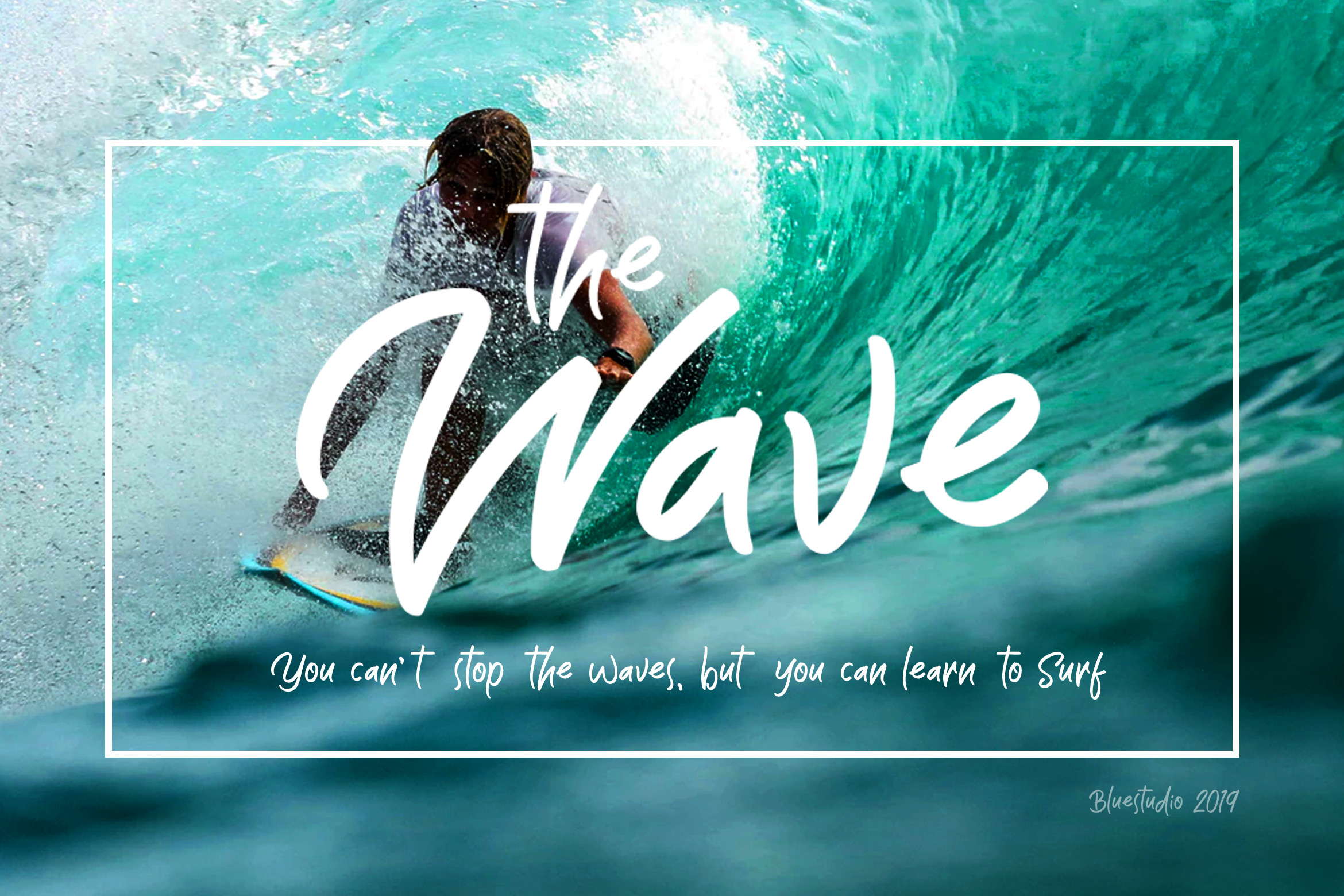
The Wave fits all the needs of the design projects for clothing, t-shirts, branding, quotes, covers, magazine, posters,books and others.
Multilingual support - spread your message globally AÀÁÂÃÄÅCÇDÐEÈÉÌÍÎÏIÌÍÎÏNÑOØÒÓÔÕÖUÙÜÚÛWYÝŸÆßÞþ